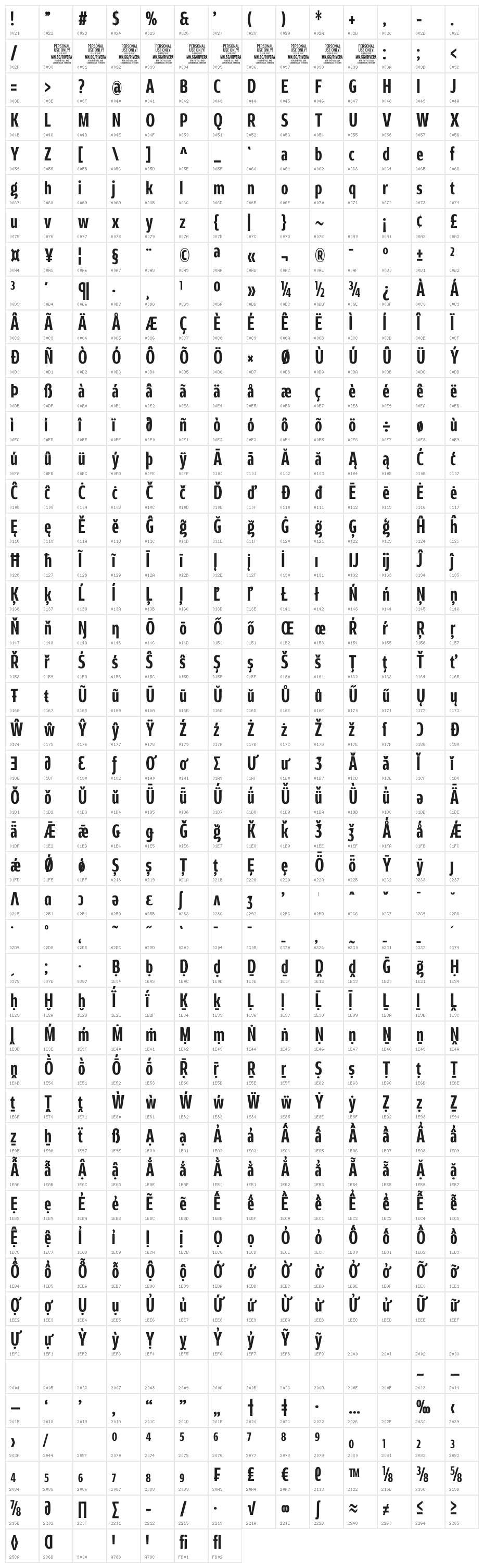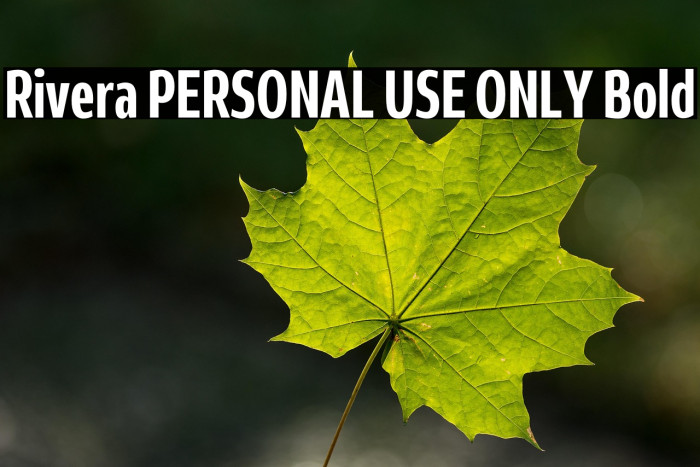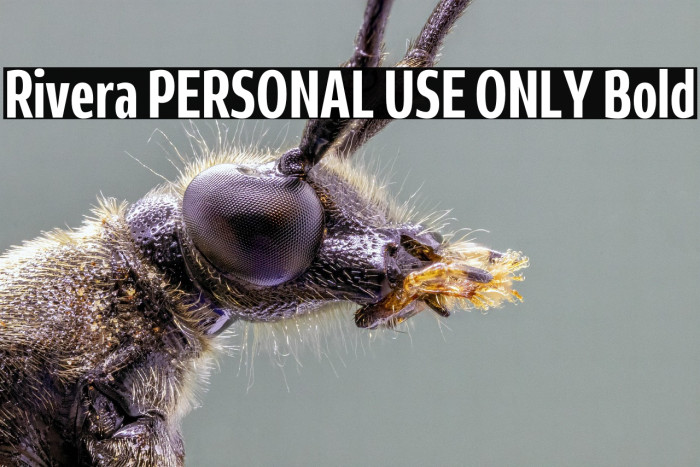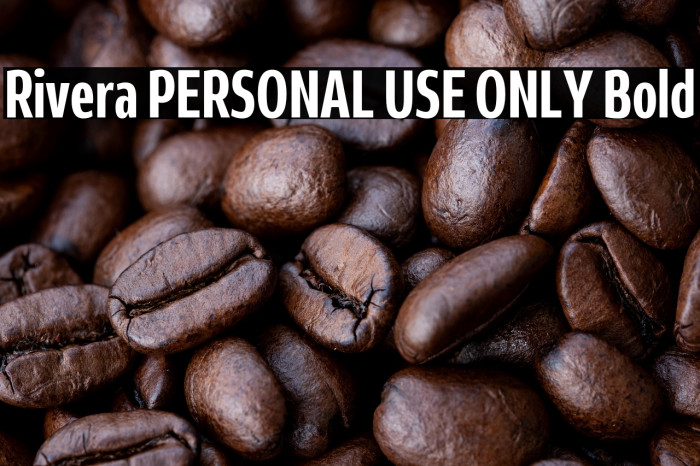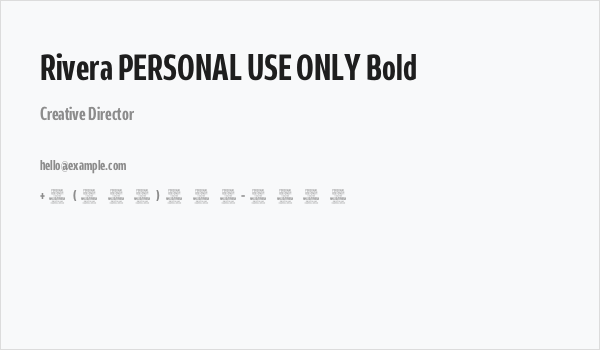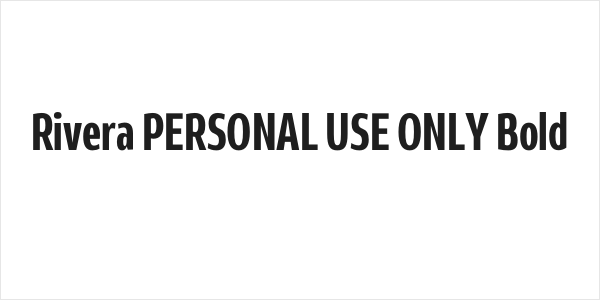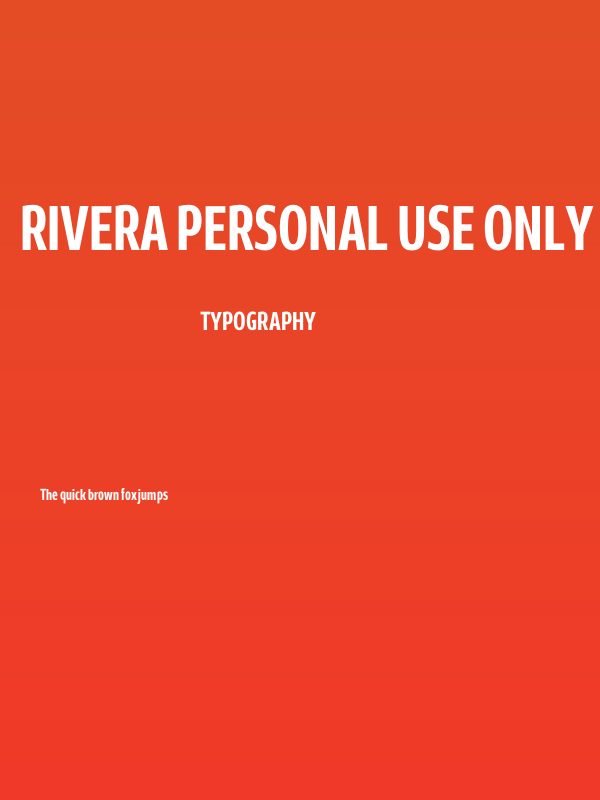
Rivera PERSONAL USE ONLY Bold Font
Rivera PERSONAL USE ONLY Bold Description
This font features a bold and assertive style with clean, straight lines and a modern aesthetic. The uppercase letters are tall and commanding, while the lowercase letters maintain a consistent height that complements the uppercase. The numerals are clear and easy to read, making them suitable for various applications. The special characters are well-designed, maintaining the overall boldness and clarity of the font. This typeface is versatile, offering a strong visual impact that can be used in a variety of design contexts.
| Proposed Projects | Ideal for headlines, posters, branding, and advertising materials where a strong, modern presence is needed. |